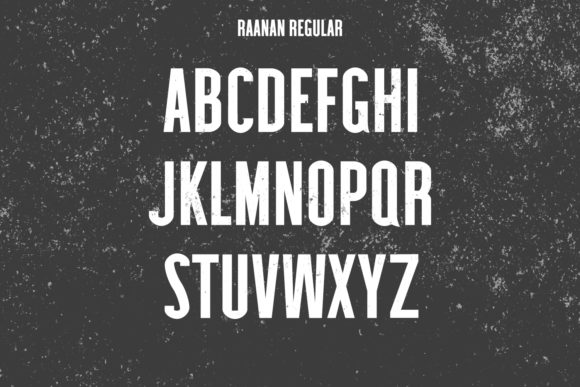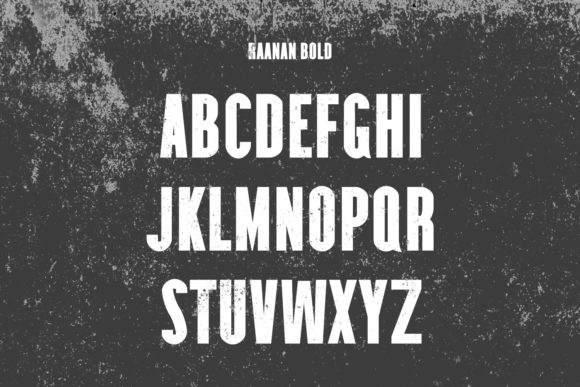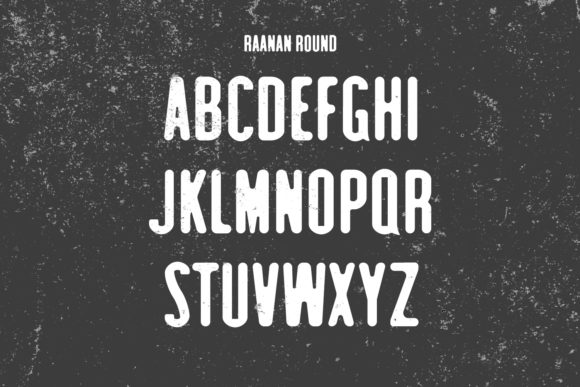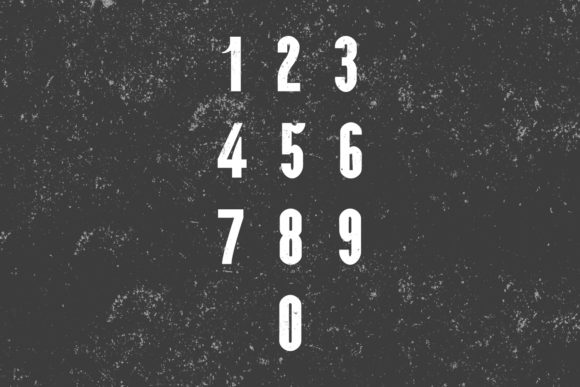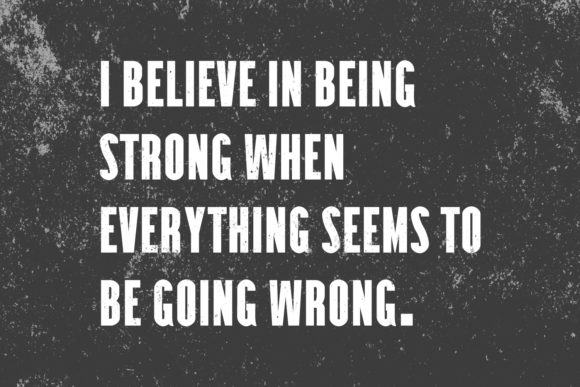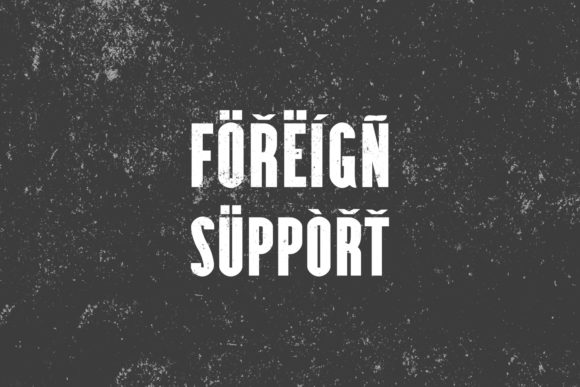
Introduction to Raanan Family Font
As a designer, there’s nothing quite like the rush of excitement that comes with discovering the perfect font for a creative project. Whether you’re working on a logo, a magazine heading, or a poster, the right font can make all the difference in bringing your vision to life. For many designers, that perfect font is the Raanan Family Font – a classic sans serif family that exudes strength and sophistication.
With four weights to choose from – regular, light, round, and bold – the Raanan Family Font offers a versatile range of options for designers looking to add a touch of elegance to their work. From free download to high-quality use, this design resource is a valuable addition to any creative toolkit. And with its transparent background, it’s perfect for use in a variety of contexts, from web layouts to packaging design.
Key Features of Raanan Family Font
- High-quality font design resource ideal for creative projects, available for free download with transparent background.
- Comprehensive font family consisting of multiple styles, including bold, italic, and regular.
- Supports various languages, making it a versatile choice for global design applications.
- Includes a comprehensive character set, including Latin, Cyrillic, and Greek alphabets, as well as a range of punctuation and special characters.
Honest Review: Raanan Family Font
The Raanan Family Font is a high-quality font that features a clean and elegant design. I appreciate the fact that it comes with a transparent background, which makes it easy to use in various design scenarios. The font is versatile and suitable for a wide range of creative projects, from headings to body text.
What works well: ✨ The font’s elegant design and high-quality look make it a great addition to any design project. ✨ The transparent background is also a convenient feature that saves time during the design process.
Limitations: ⚠️ The font’s style may not be suitable for every design project, as it’s more geared towards elegant and sophisticated designs. ⚠️ Additionally, the font family is relatively small, which may limit its versatility in certain situations.
Overall, I’m impressed with the Raanan Family Font and would definitely consider using it in future design projects. Its high-quality design and convenient features make it a valuable resource for designers looking to elevate their creative work.
- High-quality font design
- Suitable for various design projects
Getting the Most Out of the Raanan Family Font
To get the most out of the Raanan Family Font, use it on a transparent background for a clean and modern look. Experiment with different font sizes and styles to add depth and visual interest to your designs.
The Raanan Family Font is ideal for:
- Print materials and marketing collateral